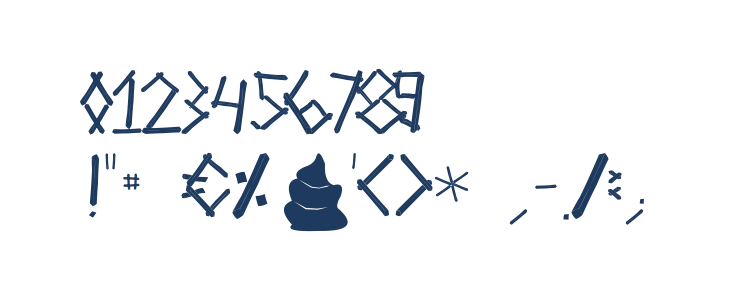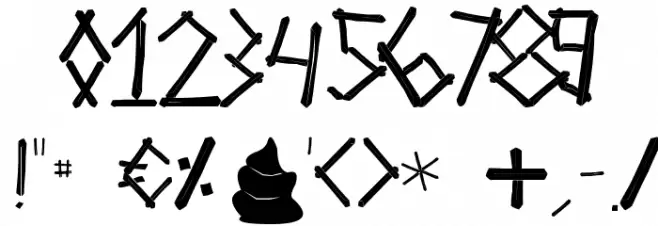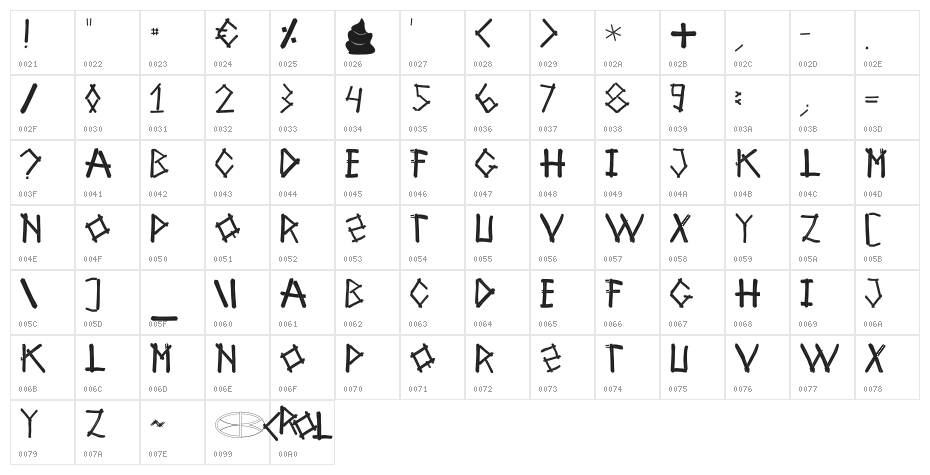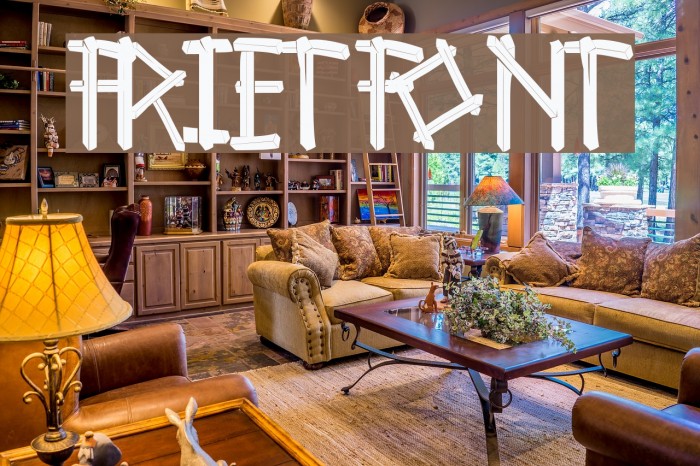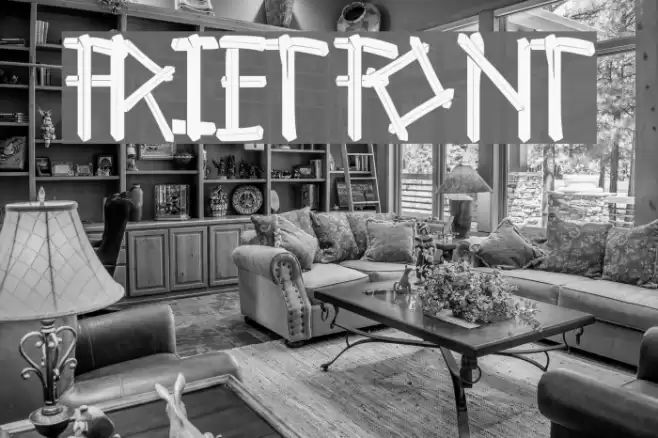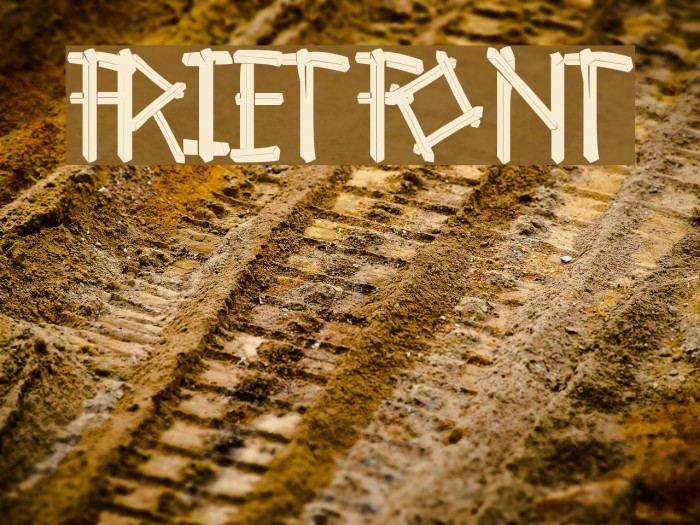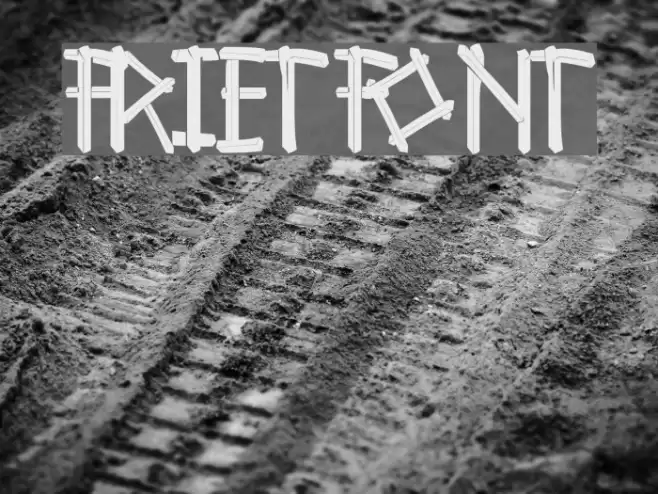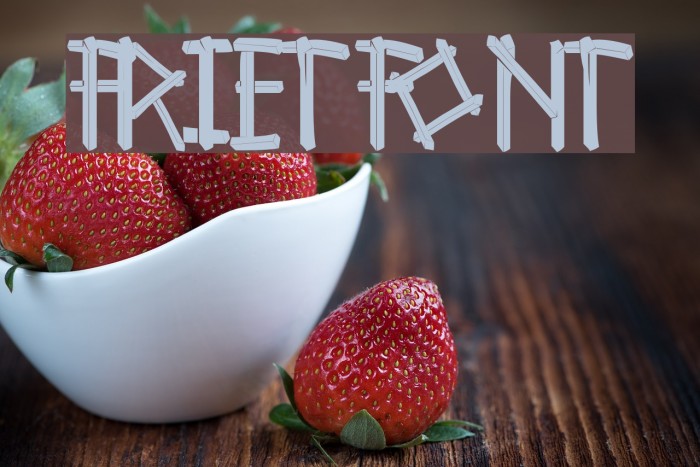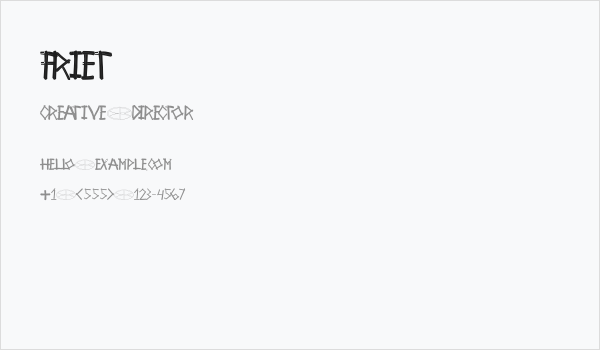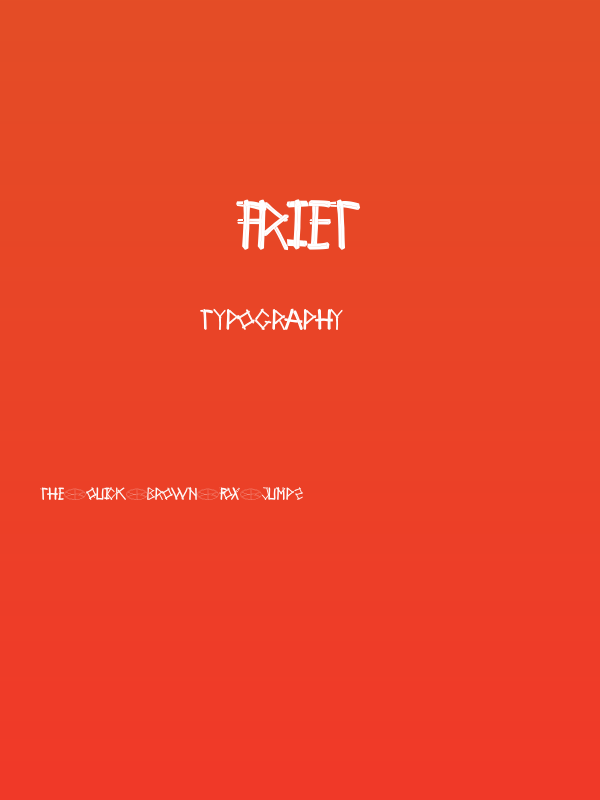
FRIET Font
FRIET Description
This font features a highly decorative and playful style, with each character resembling a collection of sticks or twigs arranged to form letters and numbers. The strokes are bold and uneven, giving a hand-drawn, rustic appearance. The characters are distinct and quirky, with a sense of movement and energy. The uppercase and lowercase letters maintain a consistent style, while the numbers and special characters follow the same thematic design. This font is visually striking and would stand out in any creative project.
| Proposed Projects | Ideal for children's book covers, playful posters, creative branding, and any project requiring a whimsical touch. |